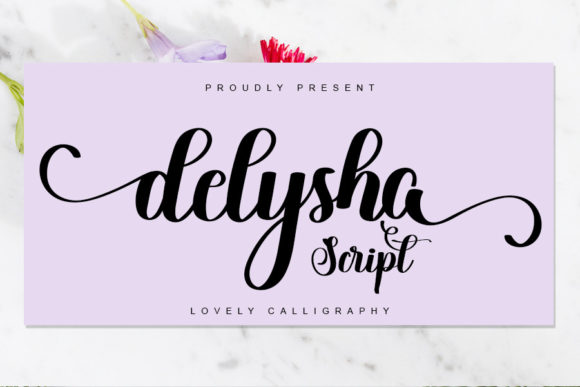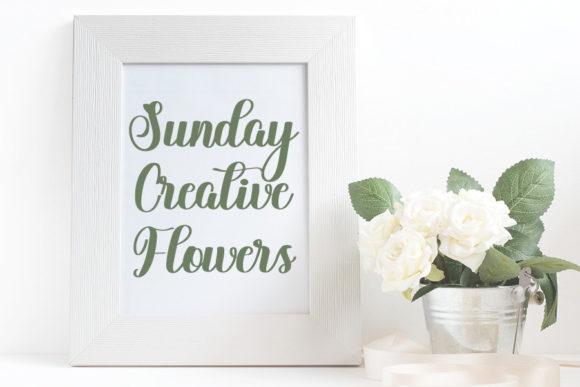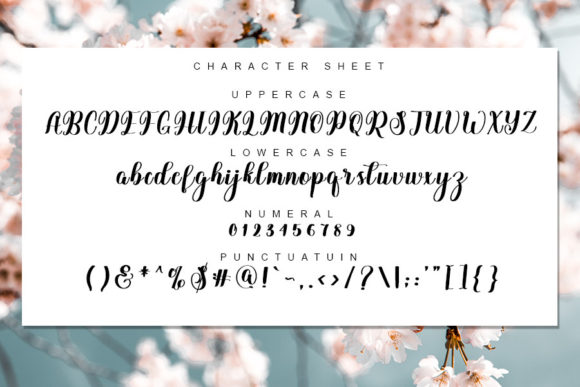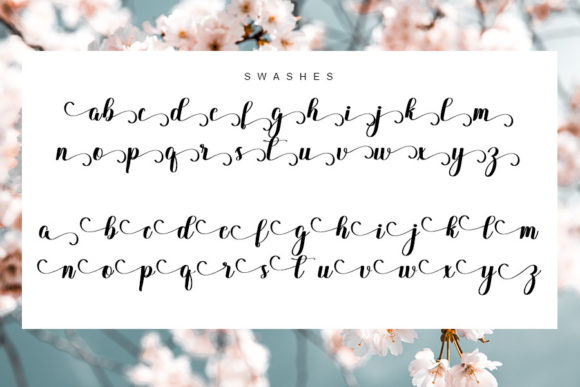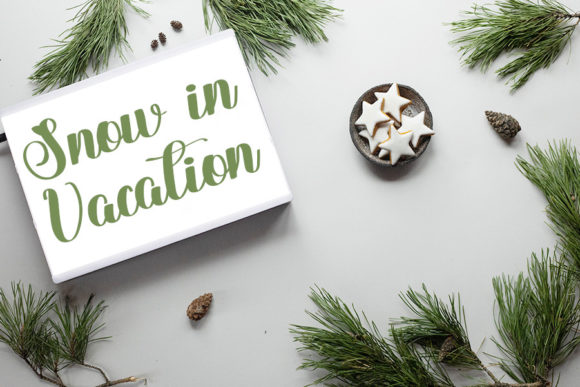
Delysha Script Font
Delysha Script is a gorgeous and bold handwritten font. It reads as confident and dynamic and can add tons of nostalgic characters to your designs. Fall in love with its incredibly versatile style and use it to create spectacular designs!